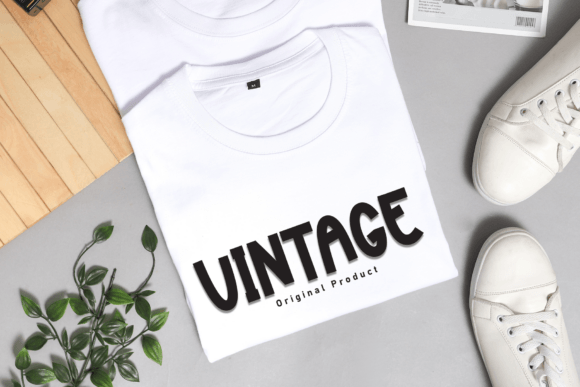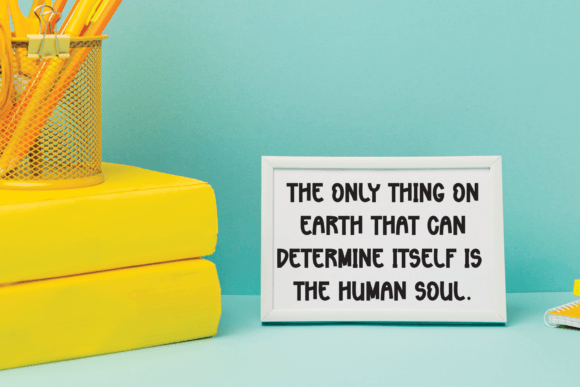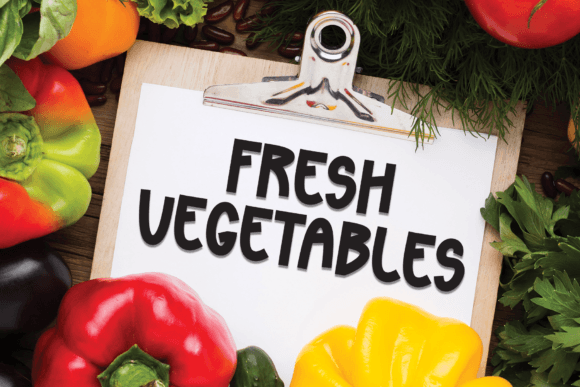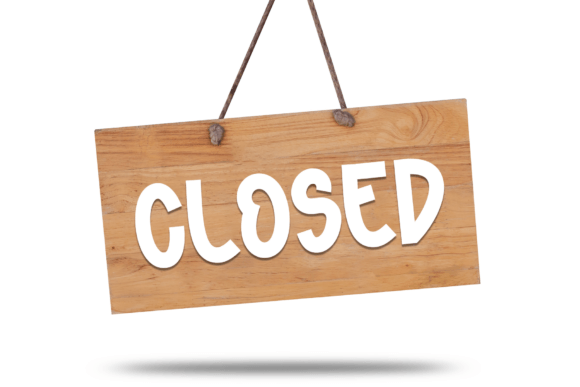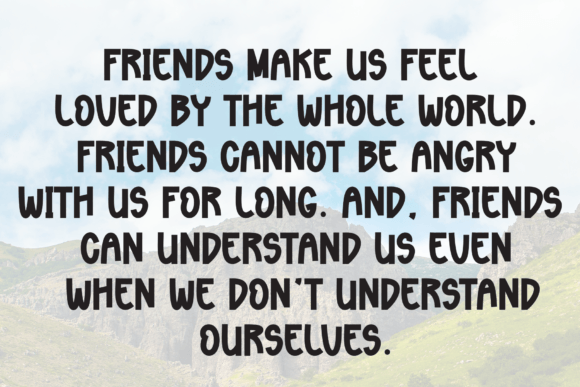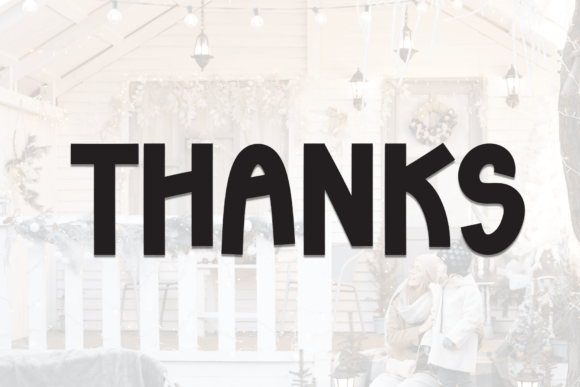
Introducing Christmas Homestay Font: A Sweet and Friendly Handwritten Delight
Are you a designer, crafter, or DIY enthusiast looking for a font that can add a touch of warmth and personality to your projects? Look no further than Christmas Homestay Font, a sweet and friendly handwritten font that’s perfect for a wide range of designs. In this article, we’ll dive into the features and benefits of Christmas Homestay Font, and explore how it can elevate your creative projects.
A Natural and Unique Style
Christmas Homestay Font boasts a natural and unique style that’s reminiscent of handwritten notes and letters. Its organic feel makes it incredibly fitting for designs that require a personal touch, such as holiday cards, invitations, and gift tags. The font’s distinctive character ensures that your designs will stand out from the crowd, while its friendly tone creates an instant connection with your audience.
The versatility of Christmas Homestay Font is one of its most significant advantages. Its adaptability makes it suitable for a large pool of designs, from festive holiday projects to everyday crafts. Whether you’re creating:
- Gift tags and wrapping paper
- Blog headers and titles
- DIY craft tutorials and patterns
the only limit is your imagination! Christmas Homestay Font can be used in a variety of contexts, making it an excellent addition to your font library.
Key Features of Christmas Homestay Font
So, what makes Christmas Homestay Font so special? Here are some of its key features:
- Handwritten style: A natural, handwritten look that adds a personal touch to your designs
- Unique character: A distinctive font that sets your designs apart from the crowd
- Friendly tone: A warm and inviting font that’s perfect for building connections with your audience
- Versatility: Suitable for a wide range of designs, from holiday projects to everyday crafts
Tips for Using Christmas Homestay Font
To get the most out of Christmas Homestay Font, here are some tips to keep in mind:
- Pair with complementary fonts: Combine Christmas Homestay Font with other fonts to create a unique and visually appealing design
- Experiment with colors and textures: Add depth and interest to your designs with different colors and textures
- Play with font sizes and styles: Use different font sizes and styles to create visual hierarchy and emphasis